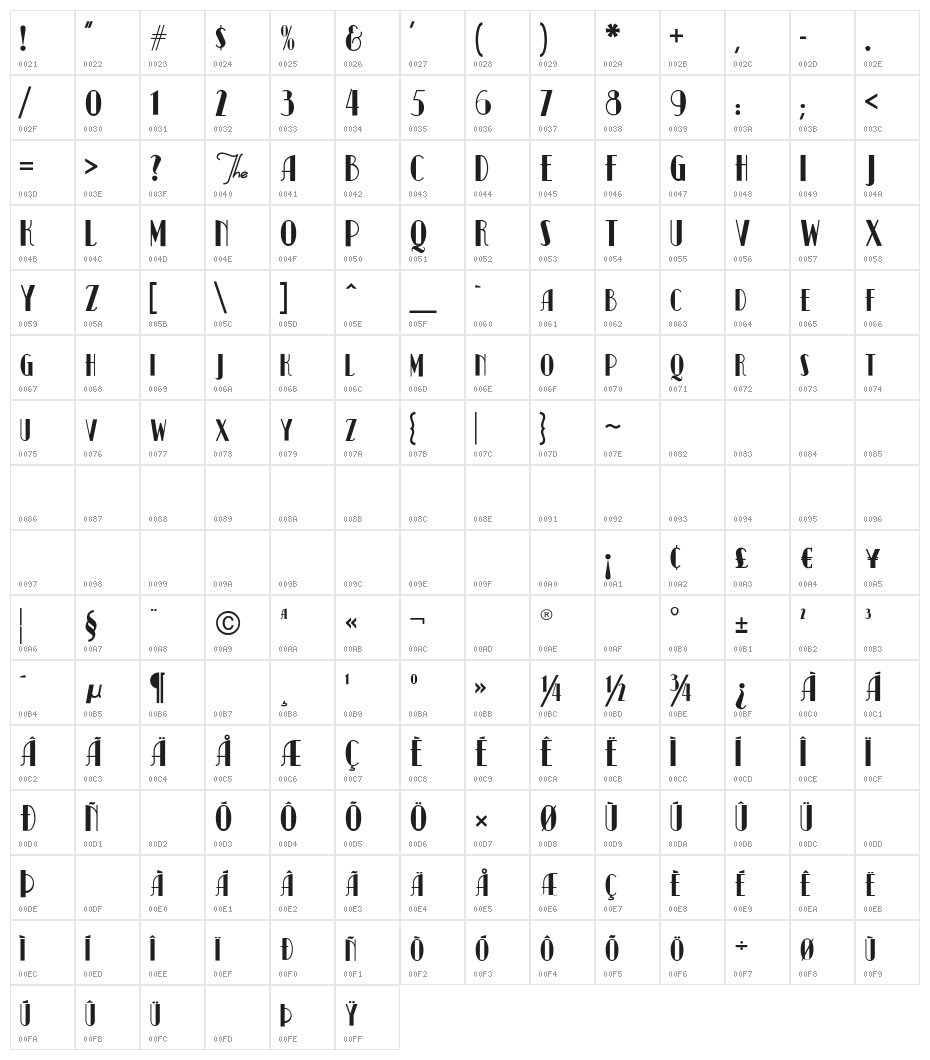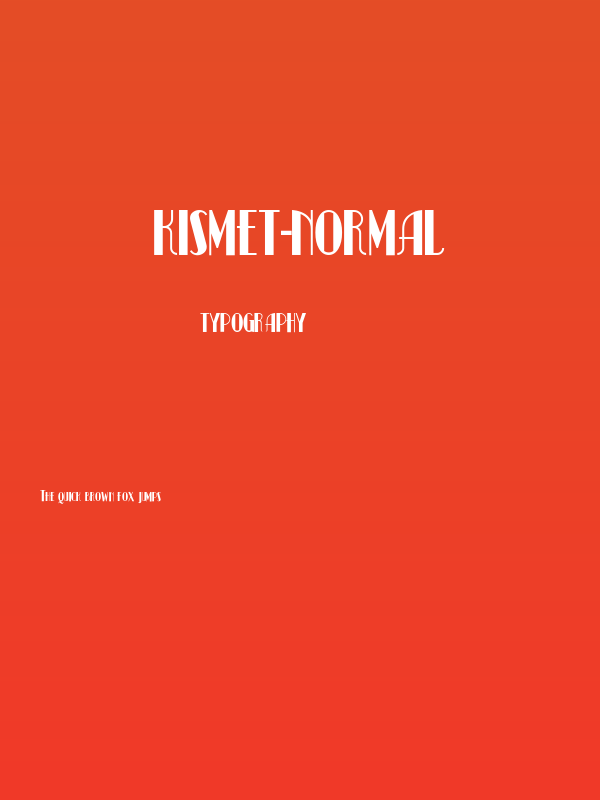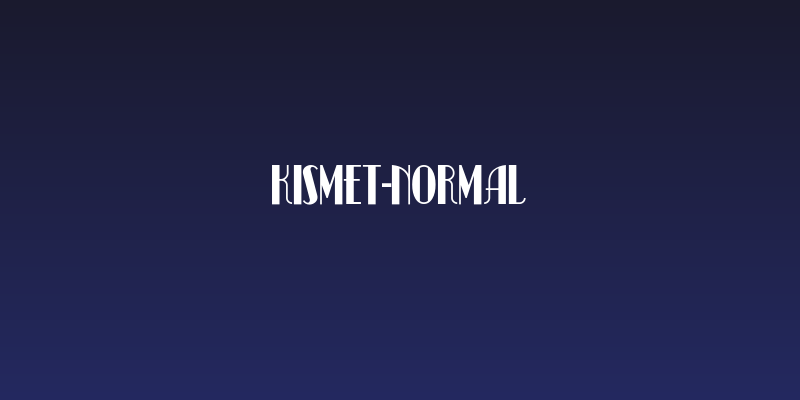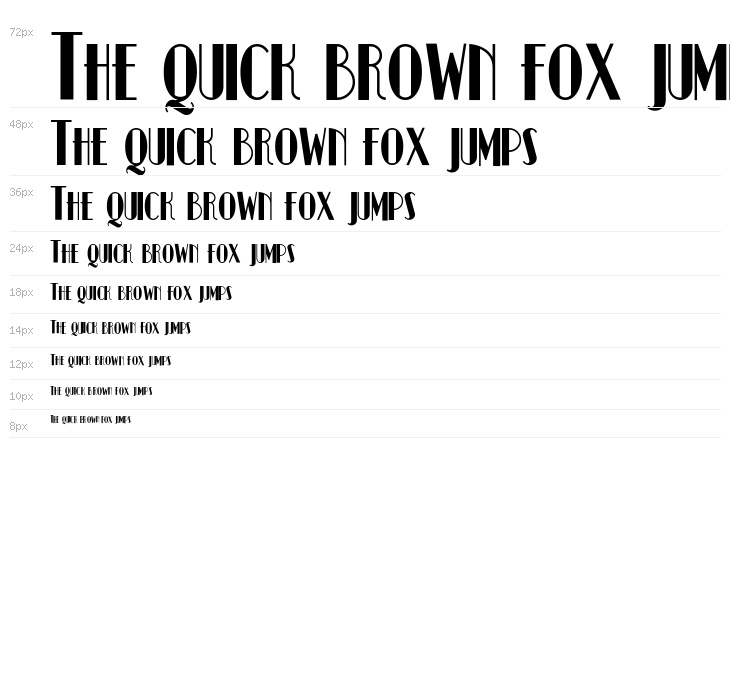
Kismet-Normal Font
Kismet-Normal Description
This font features a bold and striking design with a high contrast between thick and thin strokes. The uppercase letters are tall and narrow, with a distinct art deco influence, characterized by geometric shapes and elegant curves. The lowercase letters maintain a similar style, offering a cohesive look. Numbers and special characters are designed to match the boldness and style of the alphabet, making them stand out. The overall appearance is both modern and vintage, suitable for making a strong visual impact.
| Overall Style | Modern, Vintage |
| Proposed Projects | This font is perfect for branding projects, poster designs, and any creative work that requires a bold statement. It can also be used in editorial design for headlines and titles. |